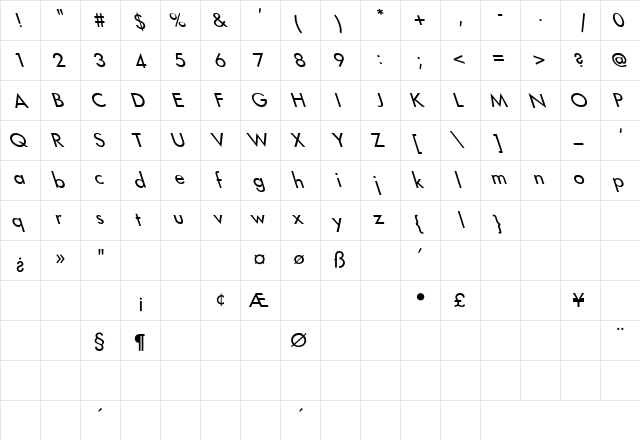
Futura-Thin-Lefty Regular
Design Context for Futura-Thin-Lefty Typeface
Futura-Thin-Lefty has a distinctly futuristic character, with geometric precision and clean angles that feel at home in technology, gaming, and sci-fi contexts. The delicate stroke weight brings airiness and refinement to layouts.
Pro Tip: Use Futura-Thin-Lefty in combination with a neutral sans for body text. Let it define the brand voice in headlines while keeping reading comfortable elsewhere.